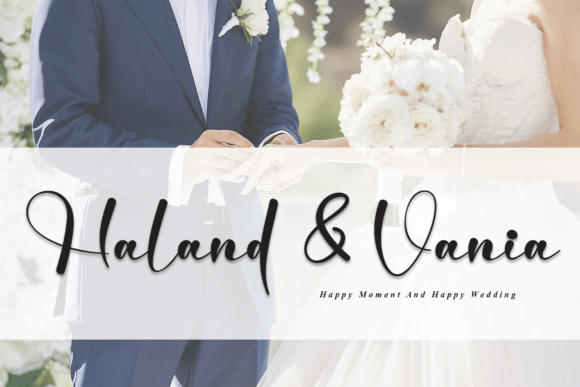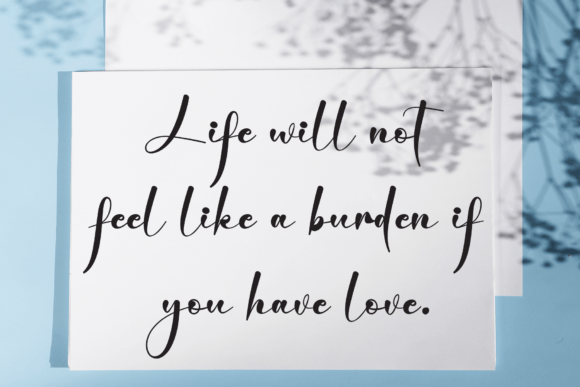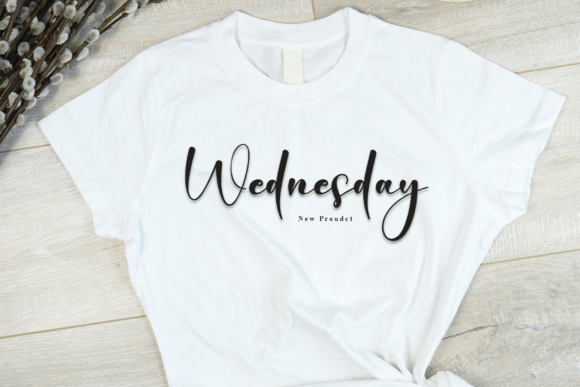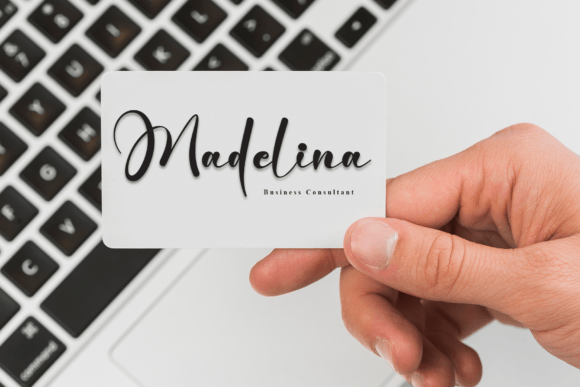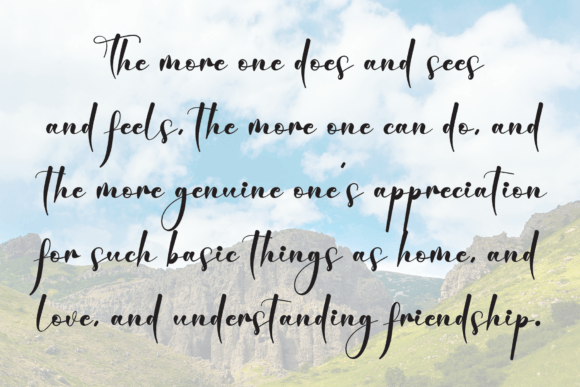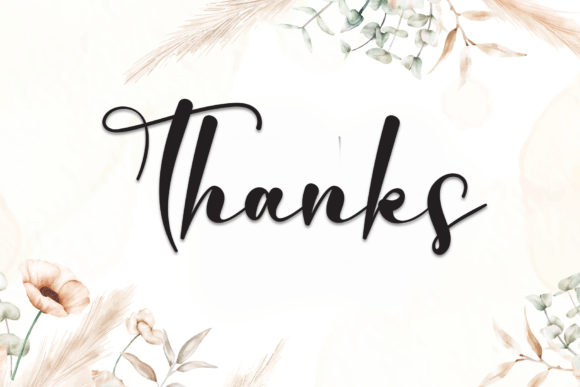
Adding a Touch of Elegance to Your Designs
Have you ever sat down to create a design, only to feel stuck because it’s missing that perfect, handwritten touch? For designers, the right font can make all the difference in bringing a project to life. This is where Greatings Font comes in – a stunning script font that’s sure to elevate your designs to the next level.
Whether you’re crafting wedding invitations, thank you cards, or business cards, Greatings Font is the perfect choice to add a touch of elegance and sophistication. Its versatility makes it a valuable tool for designers looking to create unique and memorable designs that leave a lasting impression.
Greatings Font Key Features
- Unique Character Set: The font includes a unique set of characters, including swashes, alternates, and ligatures, adding a touch of elegance to text.
Designer Review: Greatings Font
Overall, I’d say that Greatings Font is a decent addition to any designer’s toolkit. It has some nice features that make it worth considering for certain projects.
- The font’s modern and sleek design makes it perfect for digital interfaces and websites.
- It’s highly legible, even at small font sizes, making it a great choice for mobile apps and responsive websites.
- The font’s weight range is quite extensive, allowing for a good deal of flexibility in terms of design.
- It’s also a relatively lightweight font, which can be beneficial for website performance.
- The font’s lack of italics and bold-italic styles can be limiting for designers who need to create complex typography.
- It may not be the best choice for print design, as it can appear somewhat generic and lacking in character.
- The font’s design, while modern, may not be unique or memorable enough to stand out in a crowded market.
While Greatings Font has its limitations, it’s still a solid choice for designers who need a versatile and legible font for digital projects. With a bit of creativity and imagination, it can be used to create some really great designs.
For best results, use Greatings Font for headings and titles to create a bold and eye-catching design.
Greatings Font is ideal for:
– Creating bold and eye-catching headings and titles.
– Adding a touch of elegance to your designs.
– Creating a consistent brand identity.
Remember to use Greatings Font in moderation to avoid overwhelming your design.